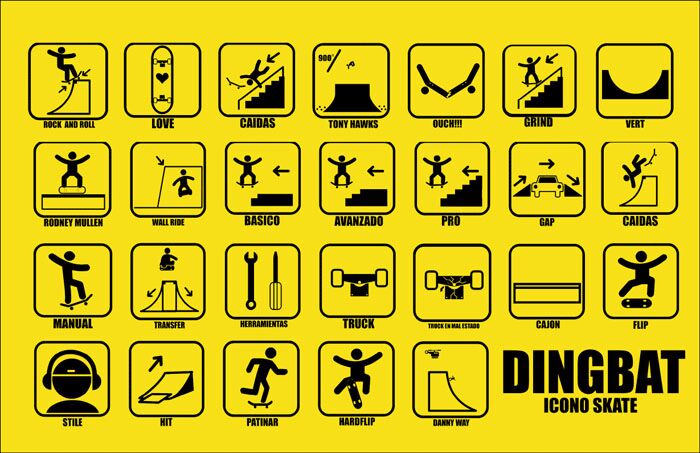
ICONOS SKATE Czcionka
Iconos Skate is a free skateboarding dingbat font built around compact, hand-drawn safety-sign pictograms that show riders, boards, ramps, falls, and balance tricks in quick snapshots. Simplified human figures sit inside rounded rectangular frames, joined by crisp ledges, loose impact marks, and small directional arrows that give the collection the practical look of instructional park decals.
Rooted in skate culture and public-safety graphics, this direct visual shorthand fits competition posters, skate-shop branding, youth-sports merchandise, and park signage with an offbeat comic edge that feels both official and mischievous. Each pictogram can double as an illustrated warning badge or route marker.